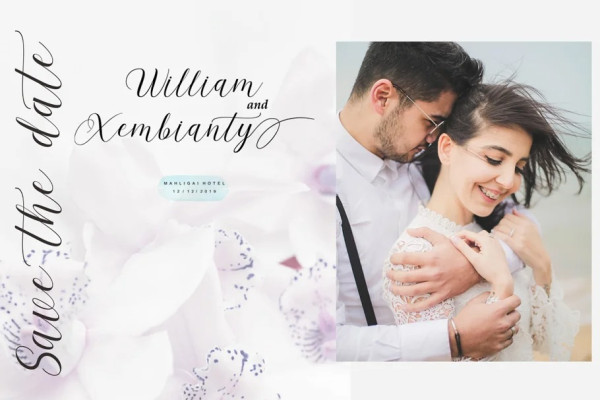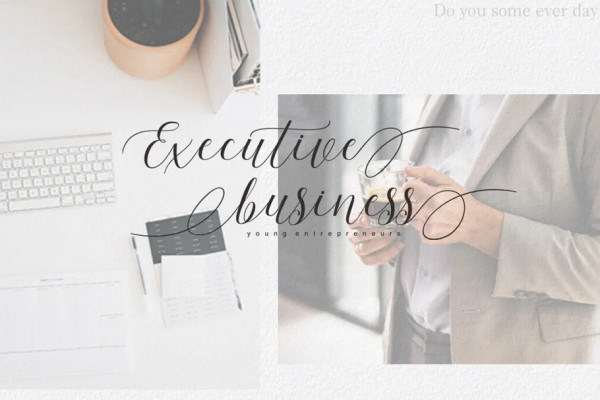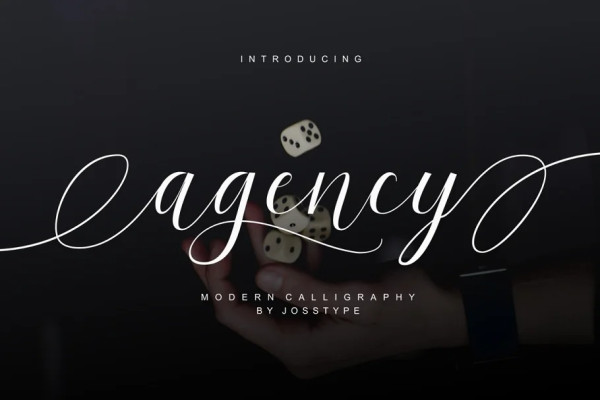
Agency Typeface
Agency Typeface,  is a handwritten typeface with classic root. a beautiful formal script and elegant touch. It works perfect in the world of weddings, logos, greeting cards, branding, print ads, quotes, signage, magazines etc.
Agency Scrip features 339+ glyphs and 166 alternate characters. including initial and terminal letters, alternates, swashes, ligatures and multiple language support.